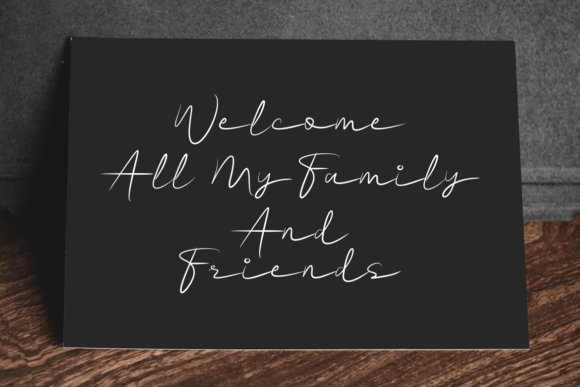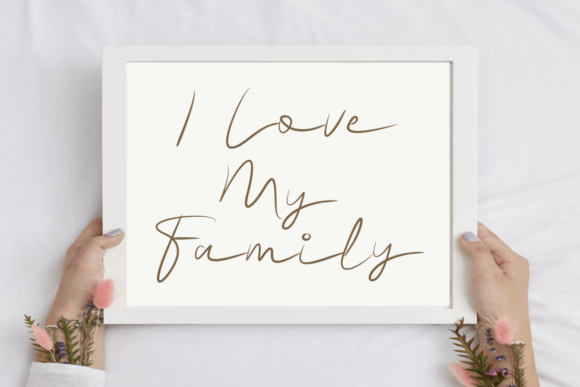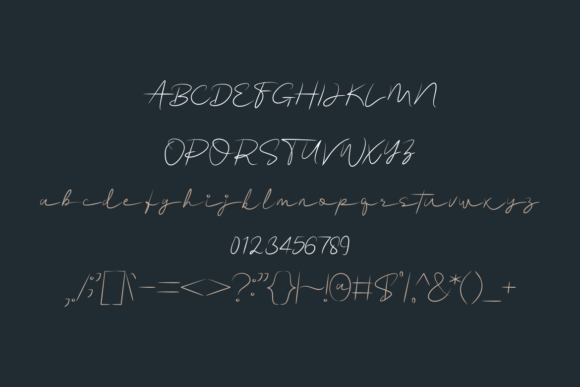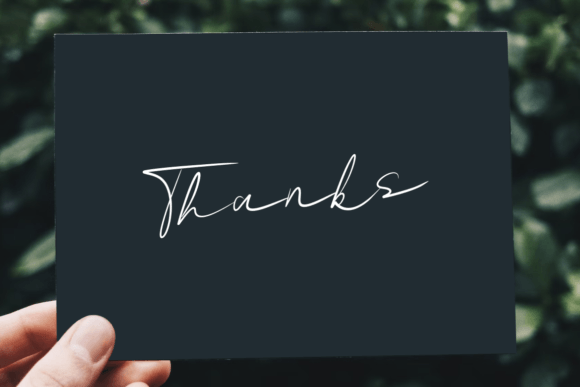
Discover the Magic of Handwritten Charm
Have you ever been stuck in a design rut, searching for that perfect font to bring your creative vision to life? I know I have. It’s like hitting the jackpot when you stumble upon a font that captures the essence of your brand’s personality. For me, that moment came when I discovered the Calliyas Font.
This beautiful and authentic handwritten font is a game-changer for any branding project. Whether you’re creating logos, designing T-shirts, or building a brand identity for your esports team, Calliyas Font is the perfect companion. With its wide range of applications, it’s no wonder designers are flocking to this versatile font. And the best part? It’s PUA encoded, making it incredibly easy to access all the glyphs and swashes you need to make your designs truly stand out.
Calliyas Font Key Features
- Font Family: Calliyas is a unique, hand-drawn font family that offers a range of styles and weights.
- Unique Characteristics: Calliyas features a distinctive, hand-crafted feel with subtle imperfections, giving it a human touch.
- Language Support: Supports a wide range of languages, including Latin, Cyrillic, and Greek scripts, making it a versatile font for global designs.
Calliyas Font Review
Overall, I found the Calliyas Font to be a well-designed and versatile typeface. Here are some of its standout features:
- ✨ Beautifully crafted letterforms that exude a sense of elegance and sophistication.
- ✨ Excellent legibility, making it suitable for a wide range of applications, from body text to headlines.
- ✨ A unique and distinctive style that sets it apart from more common fonts.
- ⚠️ The font may be a bit too ornate for some designs, particularly those that require a more minimalist aesthetic.
- ⚠️ Some characters, such as the lowercase “a” and “g”, may not be immediately recognizable to readers who are not familiar with the font.
- ⚠️ The font’s unique style may not be suitable for all languages or cultures, particularly those that require a more conservative or traditional approach to typography.
Overall, I think the Calliyas Font is a great choice for designers who want to add a touch of sophistication and elegance to their projects. However, it may not be the best fit for every design, and some users may need to adjust their expectations accordingly.
For the best results, use Calliyas Font in headings and titles to add a touch of elegance and sophistication. Experiment with different font sizes and colors to create visual interest. Consider pairing Calliyas Font with other elegant fonts for a cohesive look.
Calliyas Font is ideal for creative projects, such as:
– Luxury brand materials
– High-end marketing campaigns
– Fashion and beauty branding